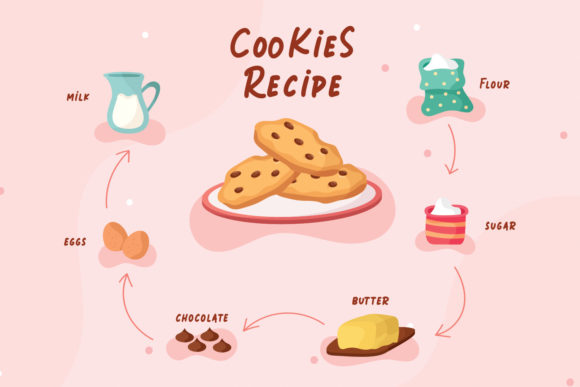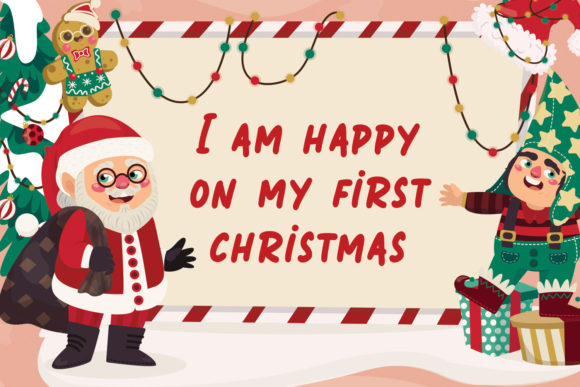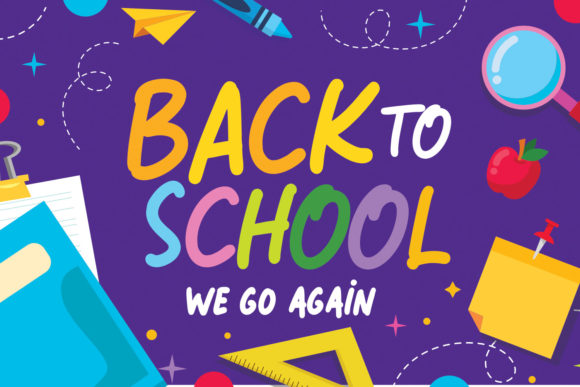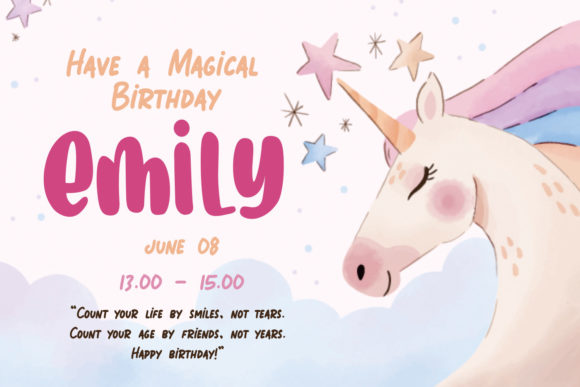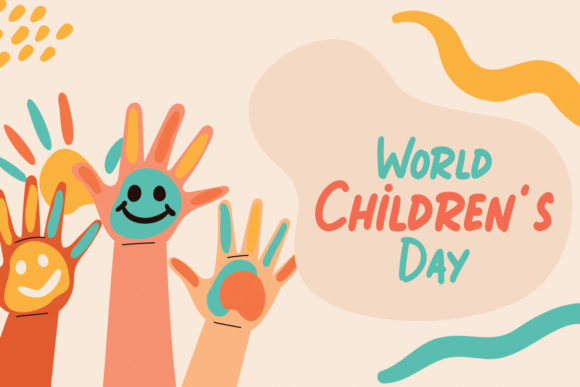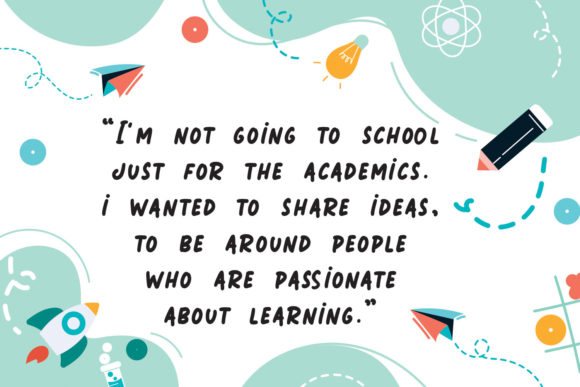
Introducing Christmas Kitchen Font: The Perfect Addition to Your Crafting Projects
Are you looking for a font that can add a touch of festive charm to your crafting projects? Look no further than Christmas Kitchen Font! This adorable display font is ideal for a wide range of creative endeavors, from crafting and branding to decorating and farmhouse designs. In this article, we’ll explore the features and benefits of Christmas Kitchen Font, and show you how to make the most of this versatile typeface.
What is Christmas Kitchen Font?
Christmas Kitchen Font is a cute and playful display font that’s perfect for adding a personal touch to your projects. Its unique design features a charming, handwritten style that’s reminiscent of festive holiday decorations. With its bold and cheerful appearance, this font is sure to capture the attention of your audience and leave a lasting impression.
What Can I Use Christmas Kitchen Font For?
The possibilities are endless with Christmas Kitchen Font! This versatile typeface can be used for a wide range of creative projects, including:
- Crafting: Add a personal touch to your crafting projects, such as scrapbooking, card making, and DIY decorations.
- Branding: Use Christmas Kitchen Font to create unique and eye-catching brand identities, including logos, business cards, and letterheads.
- Decorating: Add a festive touch to your home decor with Christmas Kitchen Font, perfect for creating personalized wall art, signs, and banners.
- Farmhouse Designs: Bring a touch of rustic charm to your farmhouse designs with this adorable font, ideal for creating signs, labels, and other decorative elements.
- Shirts and Apparel: Use Christmas Kitchen Font to create custom t-shirts, hoodies, and other apparel for a unique and personalized look.
- SVG Designs: Create stunning SVG designs, including cutting files, with Christmas Kitchen Font, perfect for use with cutting machines like Cricut and Silhouette.
- Blogs and Social Media: Add a touch of festive charm to your blog posts and social media graphics with Christmas Kitchen Font.
- Logos and Icons: Use this font to create custom logos and icons for your business or personal brand.
- Invitations and Stationery: Create beautiful and personalized invitations, cards, and stationery with Christmas Kitchen Font.
- Experiment with Sizes: Christmas Kitchen Font looks great in a variety of sizes, from small and delicate to large and bold.
- Play with Colors: Try using different colors and textures to add depth and interest to your designs.
- Combine with Other Fonts: Pair Christmas Kitchen Font with other fonts to create unique and eye-catching combinations.
- Add Decorative Elements: Use Christmas Kitchen Font to create beautiful and personalized decorative elements, such as garlands and swags.
Benefits of Using Christmas Kitchen Font
So why choose Christmas Kitchen Font for your crafting projects? Here are just a few benefits of using this adorable typeface:
- Unique and Personalized: Add a touch of personality to your projects with Christmas Kitchen Font’s charming and handwritten style.
- Versatile: Use this font for a wide range of creative projects, from crafting and branding to decorating and farmhouse designs.
- Festive and Fun: Add a touch of festive charm to your projects with Christmas Kitchen Font’s cheerful and playful design.
| Author | Mozatype |
Christmas Kitchen Font is a versatile and adorable typeface that’s perfect for adding a personal touch to your crafting projects. With its charming and handwritten style, this font is sure to capture the attention of your audience and leave a lasting impression. Whether you’re a designer, crafter, or DIY enthusiast, Christmas Kitchen Font is a great addition to your creative toolkit. So why wait? Download Christmas Kitchen Font today and start creating beautiful and personalized projects!